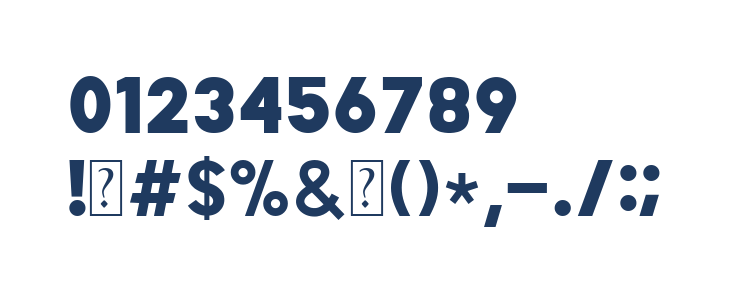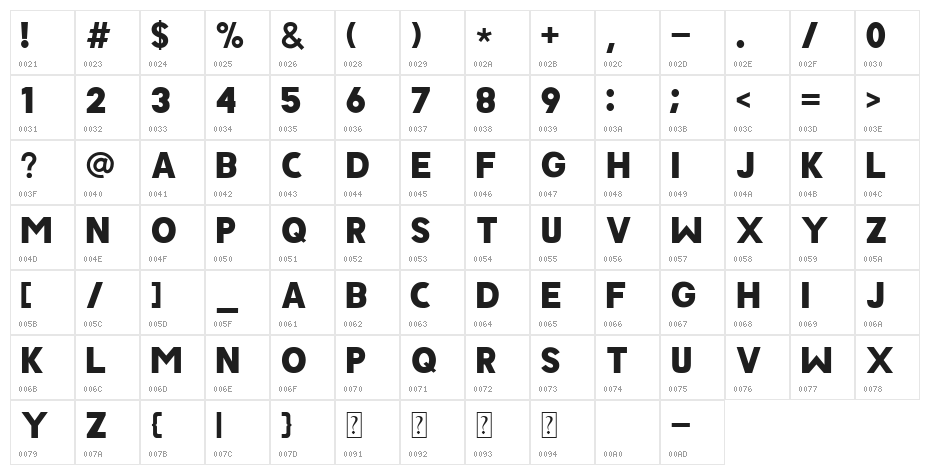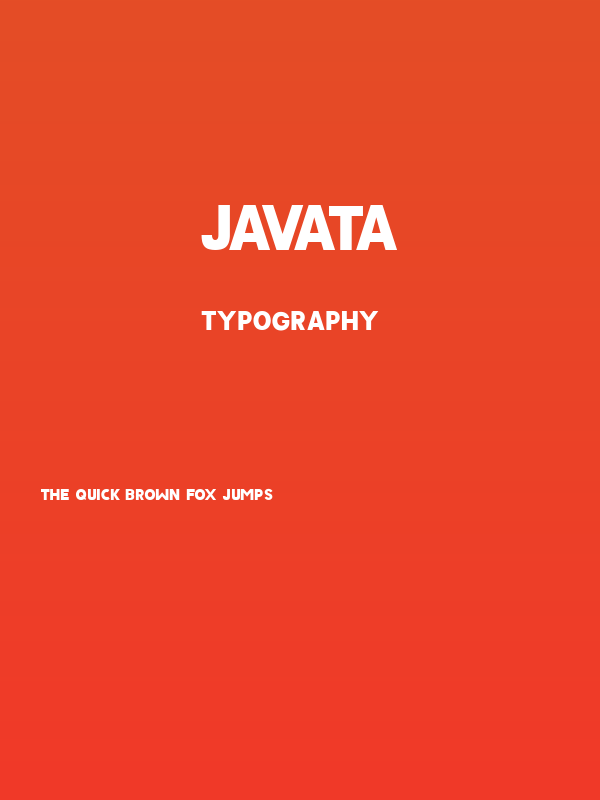
JAVATA Font
JAVATA Description
This font is characterized by its bold and impactful presence, featuring thick, uniform strokes that convey strength and modernity. The uppercase and lowercase letters maintain a consistent width, creating a harmonious and balanced appearance. The numerals are equally bold, ensuring they stand out clearly in any context. Special characters are designed with the same boldness, making them easily recognizable and visually appealing. The overall design is clean and straightforward, making it suitable for a variety of applications where clarity and emphasis are required.
| Proposed Projects | Ideal for branding, headlines, posters, and any design requiring a strong, modern typeface. |